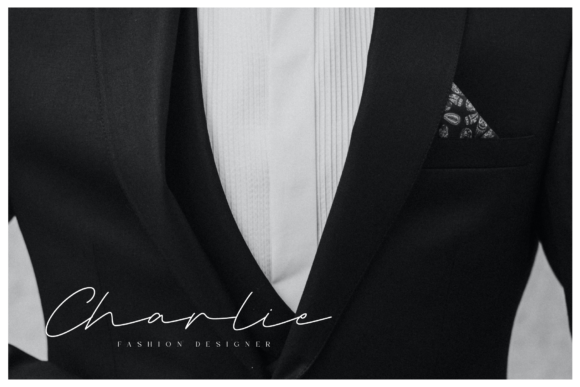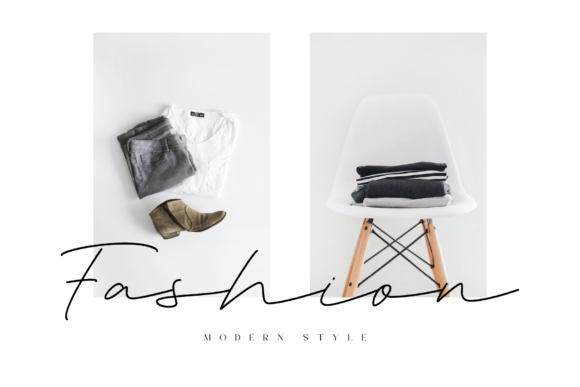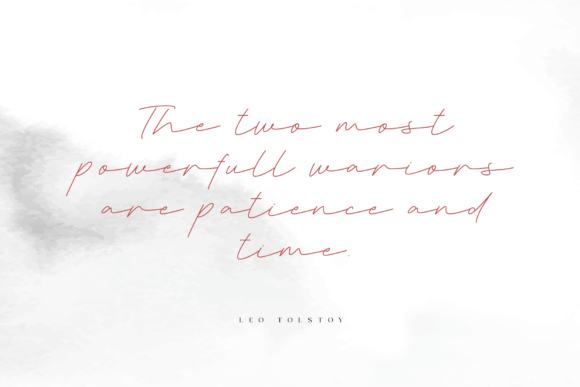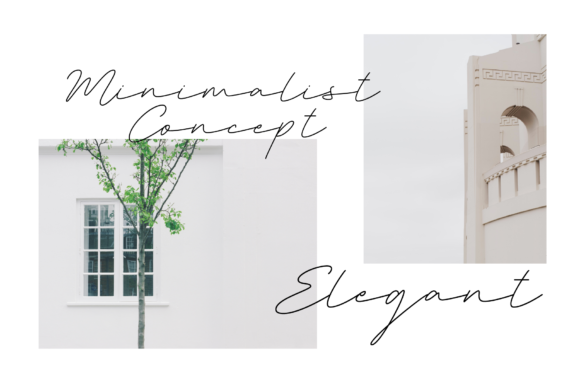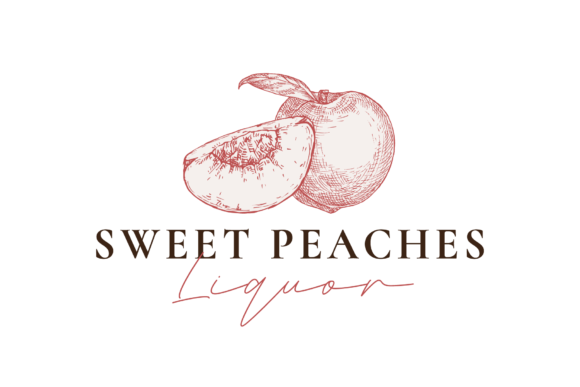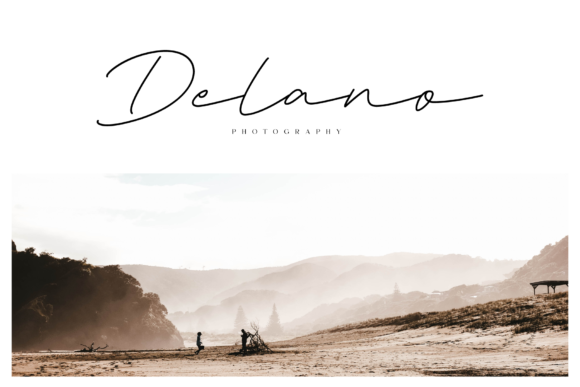
Introducing Deluna Signature Font: Elevate Your Designs with Elegance
Are you on the hunt for a font that exudes elegance, sophistication, and romance? Look no further than Deluna Signature, a stunning thin lettered and graceful script font that’s sure to capture your heart. With its ravishing style, Deluna Signature is the perfect choice for designers and crafters seeking to create breathtaking wedding invitations, beautiful stationery art, eye-catching social media posts, and more!
The Beauty of Deluna Signature
Deluna Signature boasts a delicate, cursive design that is both refined and captivating. Its thin letters and flowing curves create a sense of movement and fluidity, making it ideal for a wide range of creative projects. Whether you’re designing wedding stationery, crafting social media graphics, or creating stunning artwork, Deluna Signature is sure to add a touch of sophistication and glamour to your designs.
Perfect for Wedding and Event Design
Wedding designers and event planners, rejoice! Deluna Signature is an exceptional choice for creating gorgeous wedding invitations, save-the-date cards, and other event-related materials. Its elegant and refined design ensures that your clients’ special days will be remembered for years to come. Use Deluna Signature to craft:
- Exquisite wedding invitations that set the tone for the big day
- Beautiful stationery art, such as thank-you cards and programs
- Stunning social media posts to promote the wedding or event
Deluna Signature is not just limited to wedding design. Its versatility makes it suitable for a wide range of creative projects, including:
- Stationery art: Create beautiful journals, planners, and notebooks with Deluna Signature
- Social media graphics: Use Deluna Signature to craft eye-catching posts, quotes, and stories
- Branding and packaging: Add a touch of elegance to your brand’s packaging and marketing materials
- Art and illustration: Combine Deluna Signature with your artwork to create stunning pieces
Why Choose Deluna Signature?
So, what sets Deluna Signature apart from other fonts? Here are just a few reasons why designers and crafters love this beautiful script font:
- Unique and elegant design that adds a touch of sophistication to any project
- Highly versatile and suitable for a wide range of creative applications
- Easy to read and understand, making it perfect for body text and headlines
Get Creative with Deluna Signature
| Font Name | Deluna Signature Font |
| Author | Pen Culture |
In conclusion, Deluna Signature is a breathtakingly beautiful script font that’s perfect for designers and crafters seeking to add a touch of elegance and sophistication to their creations. With its thin letters, flowing curves, and refined design, Deluna Signature is sure to captivate your audience and leave a lasting impression. So why wait? Download Deluna Signature today and start creating gorgeous designs that will make your clients and followers swoon!